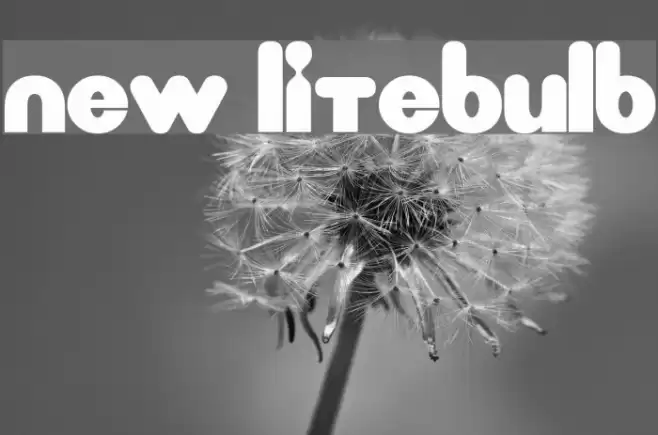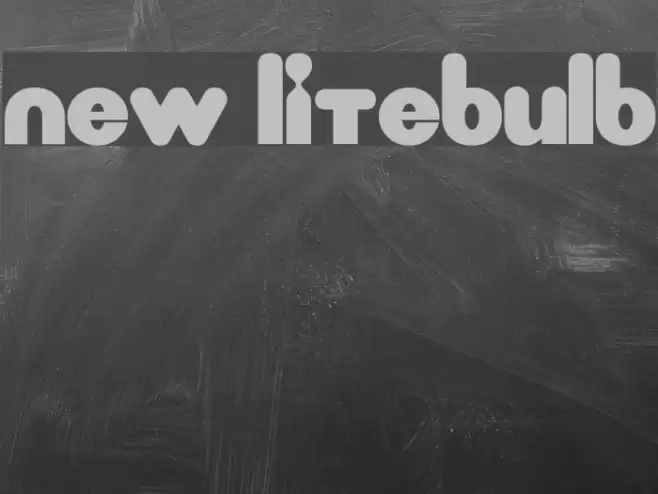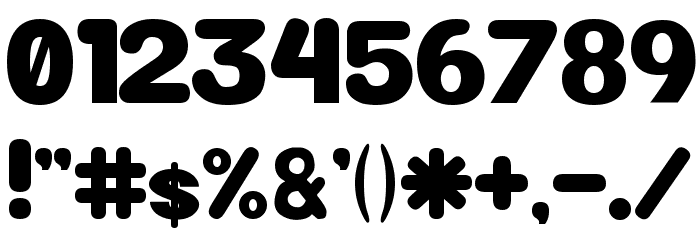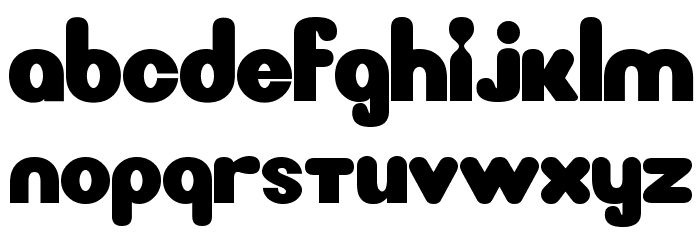
New LiteBulb
This font features a bold and playful design with rounded edges and a uniform thickness throughout each character. The letters are characterized by their smooth curves and lack of sharp angles, giving them a friendly and approachable appearance. The numbers and special characters maintain the same style, ensuring consistency across all elements. The overall look is modern and slightly whimsical, making it suitable for projects that require a touch of fun and creativity. The font's design is clean and easily readable, even at smaller sizes, making it versatile for various applications.
A bold, playful font with rounded edges and a modern, whimsical style.
- Proposed Projects: Ideal for children's books, playful branding, creative posters, and social media graphics.
- Overall Style: Modern, Whimsical
- Use Case: Logos, Headlines, Posters